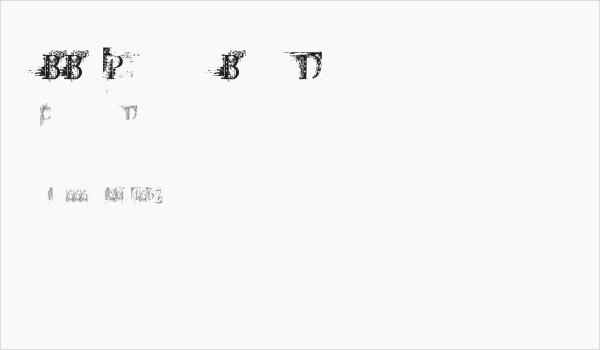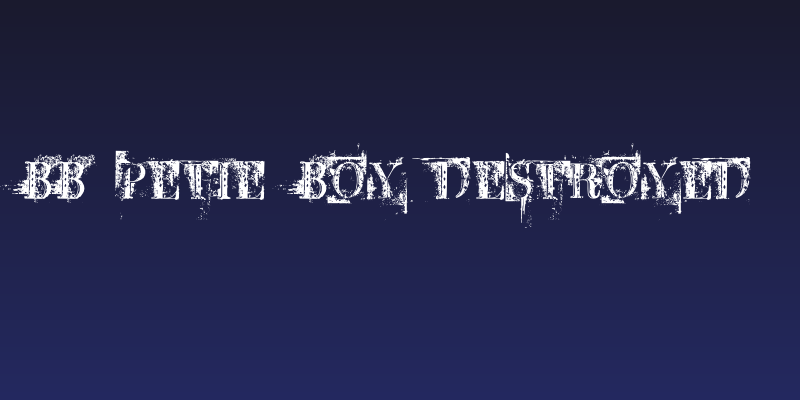
BB Petie Boy Destroyed Font
BB Petie Boy Destroyed Description
This font features a distressed and grunge aesthetic, with each character appearing as if it has been weathered or eroded over time. The letters are bold and have a rough texture, giving them a unique, edgy appearance. The uppercase letters are prominent, with a sense of chaos and destruction that adds to the overall impact. The numbers and special characters follow the same theme, maintaining consistency across the font. This style is perfect for projects that require a raw, gritty look, such as album covers, posters, or any design that aims to convey a sense of rebellion or nonconformity.
| Overall Style | Grunge, Edgy, Distressed |
| Use Case | Headlines, Posters, Album Covers |
| Proposed Projects | Ideal for album covers, rebellious-themed posters, and edgy graphic designs. |